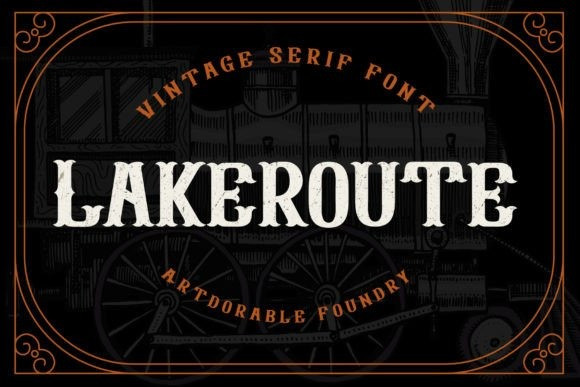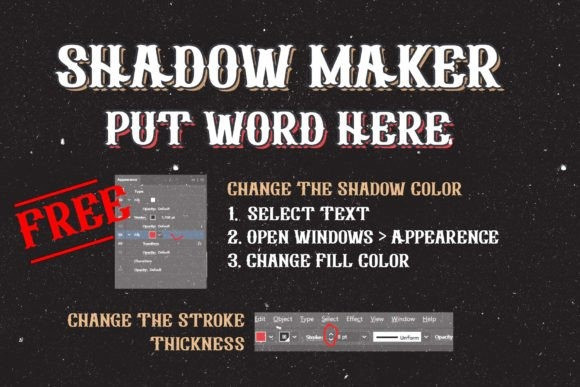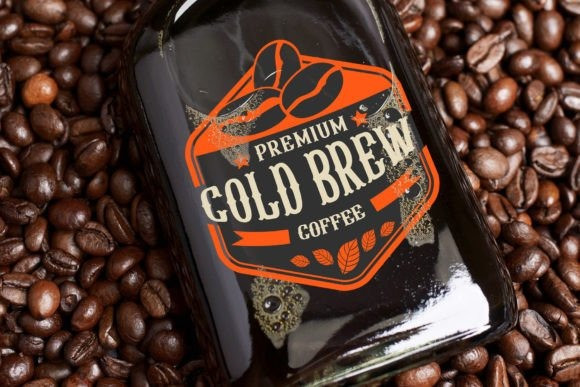
Lakeroute Font
Lakeroute is a classic, vintage-style display font. This font reads as strong, confident, and dynamic and can add tons of nostalgic character to your designs.